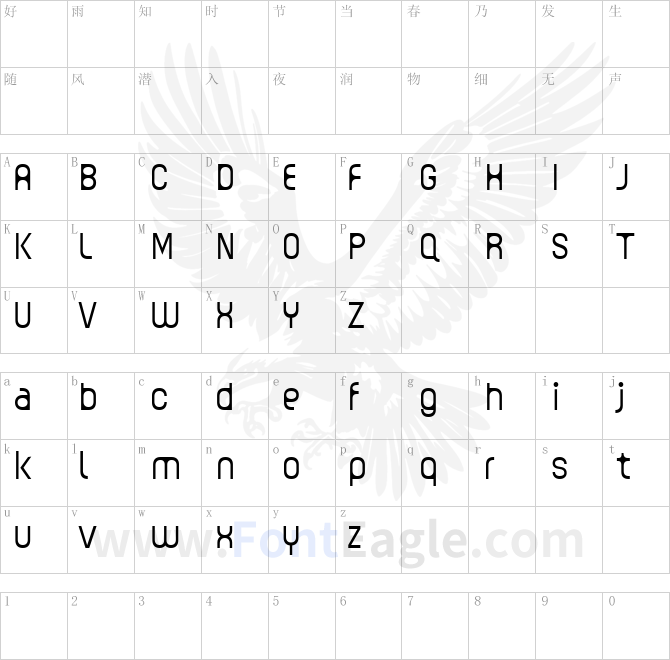
- Font name:Guhly
- Font Subfamily:Light reduced
- Font Subfamily ID:IngoZimmermann: Guhly Light: 2010
- Font Full Name:Guhly-Lightreduced
- Font Version:Version 2.004
- Postscript:Guhly-Lightreduced